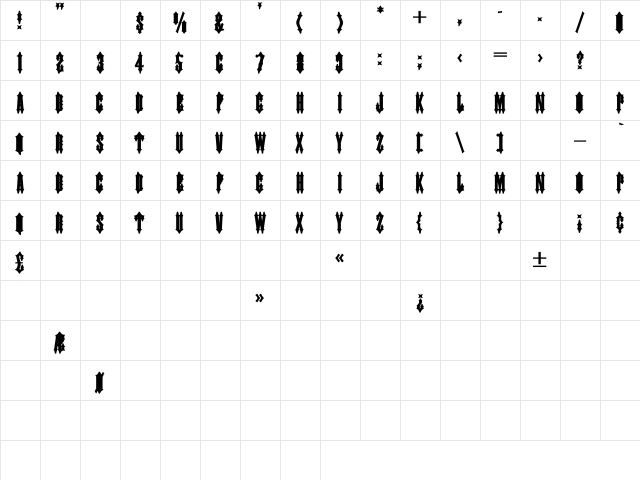
Complete JudasCaps Bold Bold glyph index. Displaying only characters natively supported by JudasCaps Bold Bold font.
JudasCaps Bold is a composed and adaptable typeface that performs quietly and consistently across a wide range of design contexts. Its bold stroke weight gives it real presence on the page.